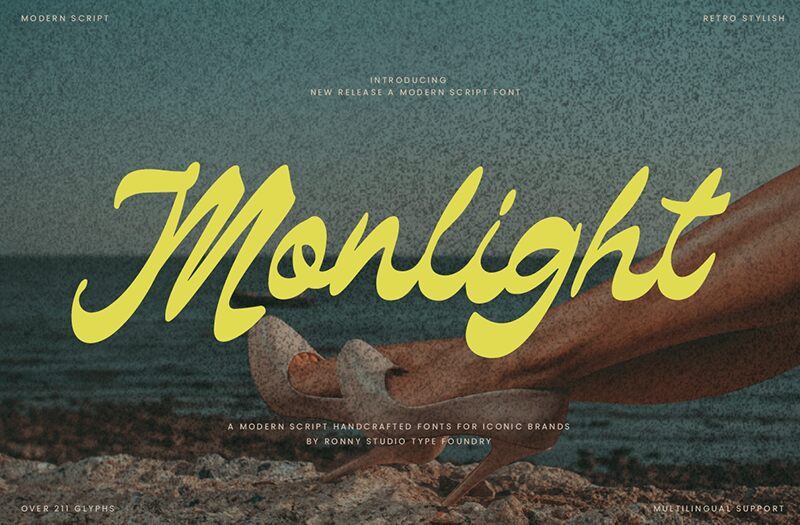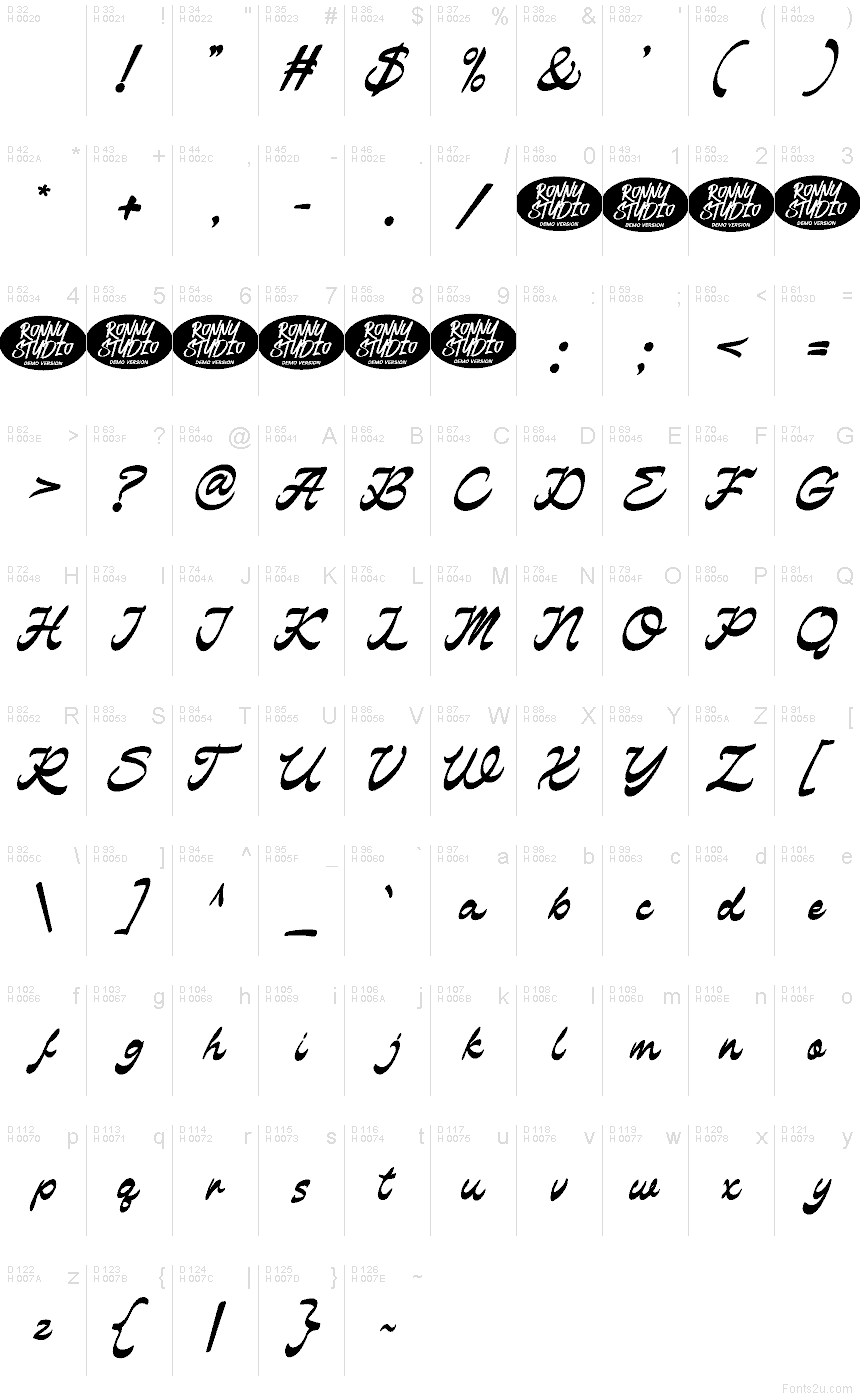
Monlight DEMO
Monlight font by Ronny Studio is a free brush script typeface that solves a familiar challenge: getting lively, hand-painted energy without losing clarity. Its strokes feel inky and confident—broad entry sweeps, gentle slant, and rounded terminals that keep words flowing rather than spiking. The spacing is generous enough to read at a glance, yet the rhythm stays snappy, so headlines pop and short phrases carry a warm, crafted snap.
Using Monlight, you can bring personality to cafe menus, product packaging, social posts, boutique logos, event invitations, and storefront signage. The sturdy forms hold up on textured backgrounds and photos, while the smooth curves keep lettering from looking messy or muddy. For balance, pair this free font with a crisp, neutral sans serif and keep Monlight large for impact with tighter line spacing to preserve its brushy momentum.